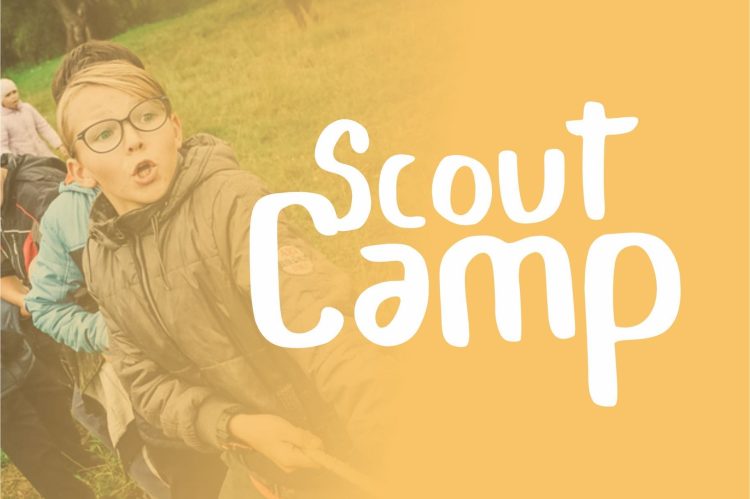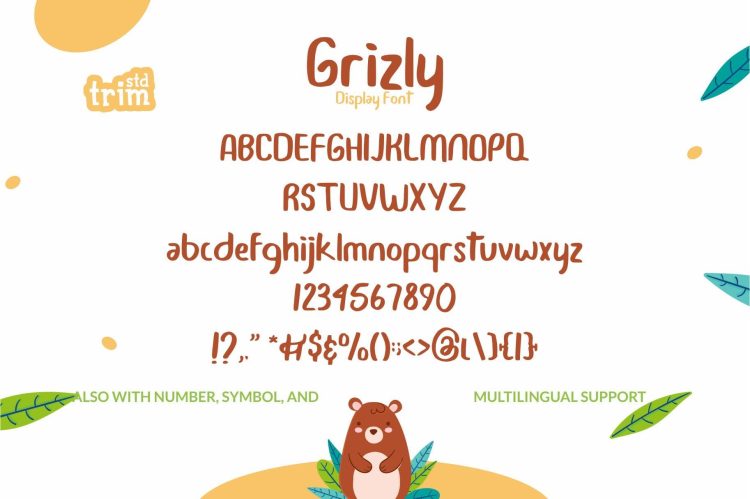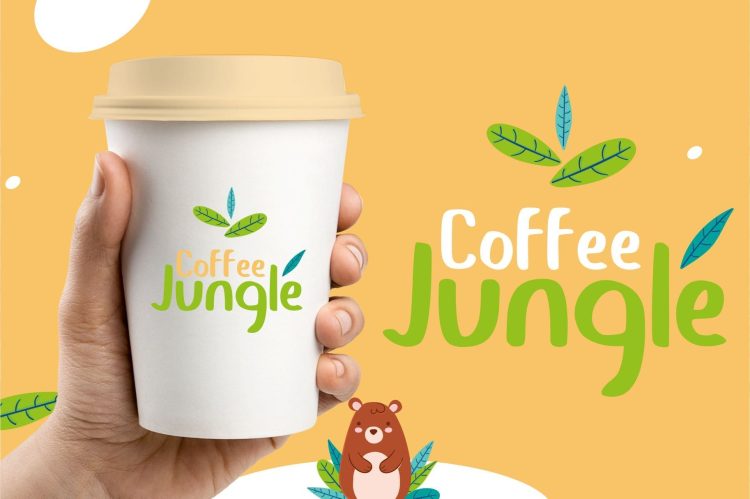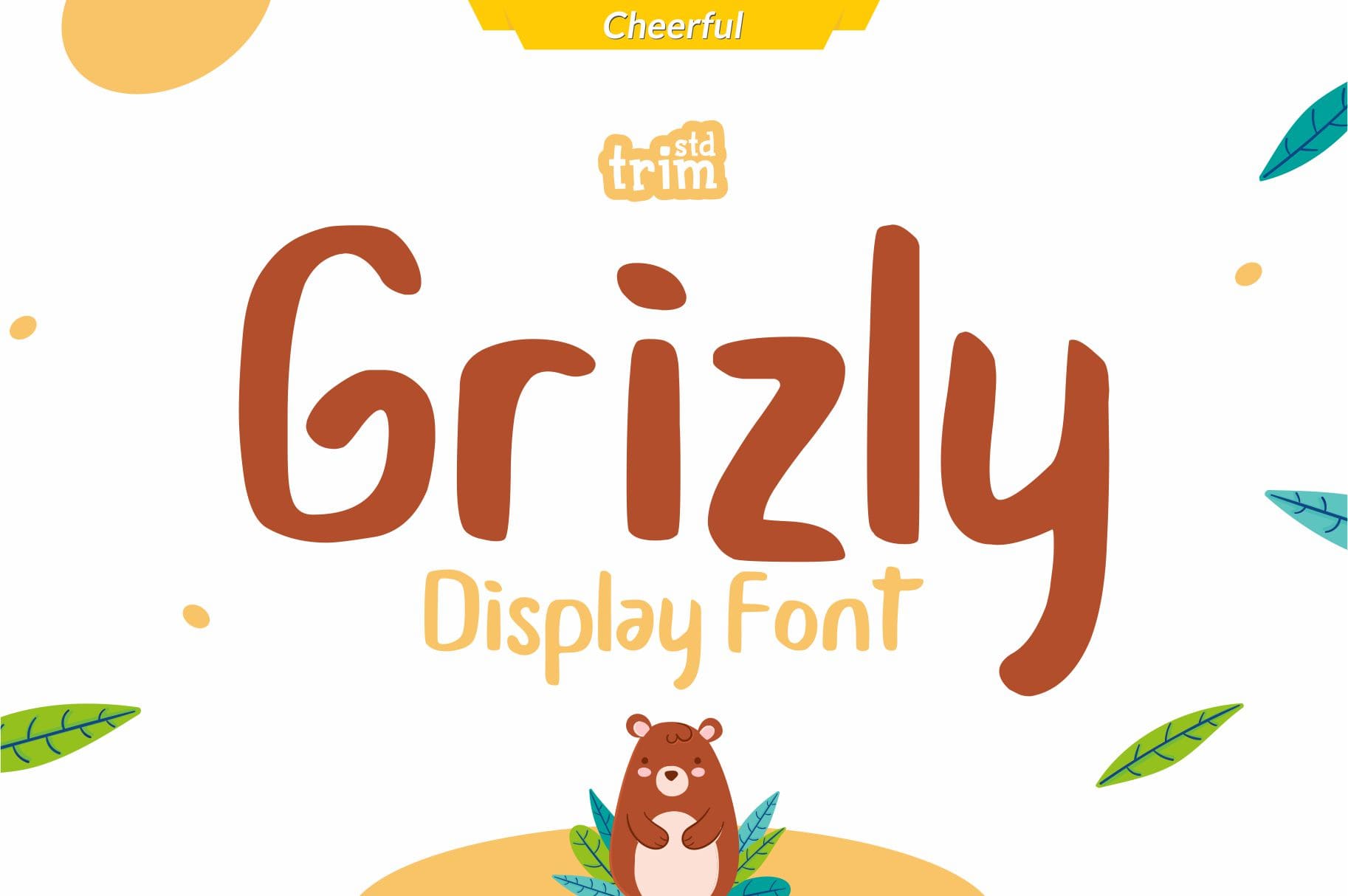
Grizly is a sweet and friendly display font. Its simplicity makes this font incredibly versatile, fitting a wide range of contexts. Add it to your creative ideas and notice how it makes them stand out!